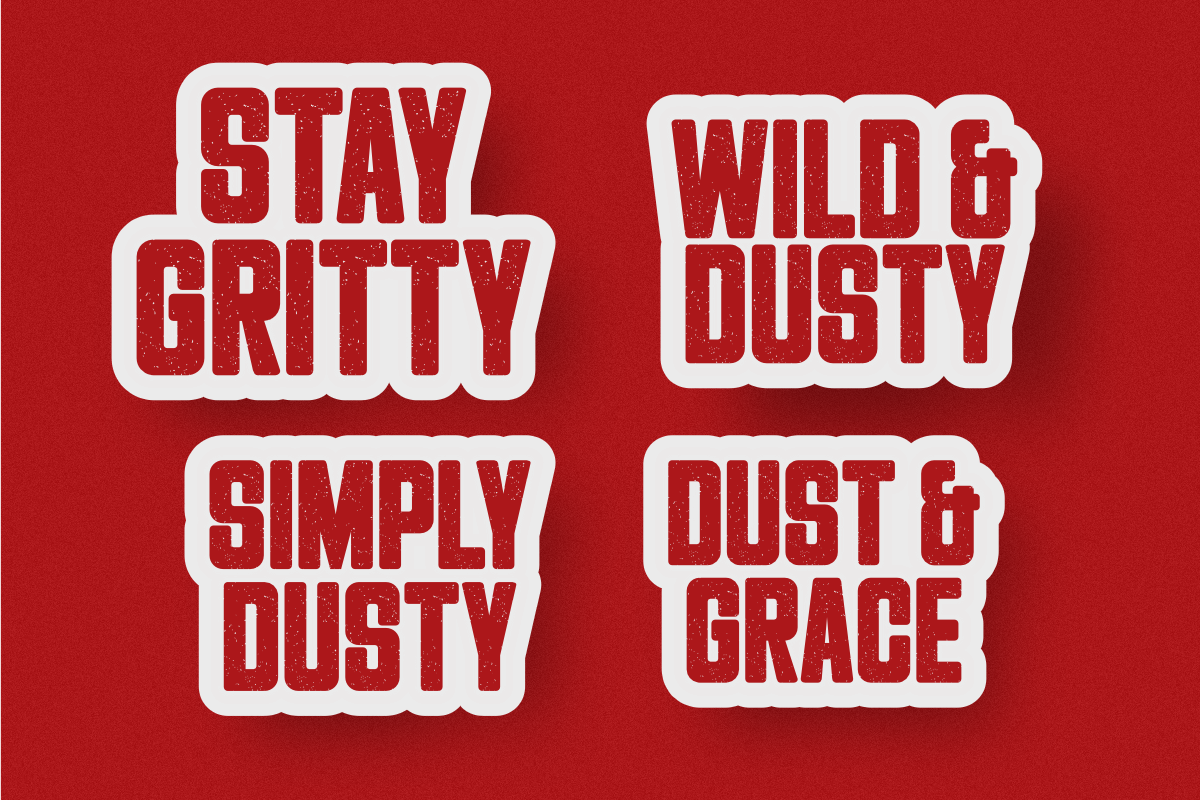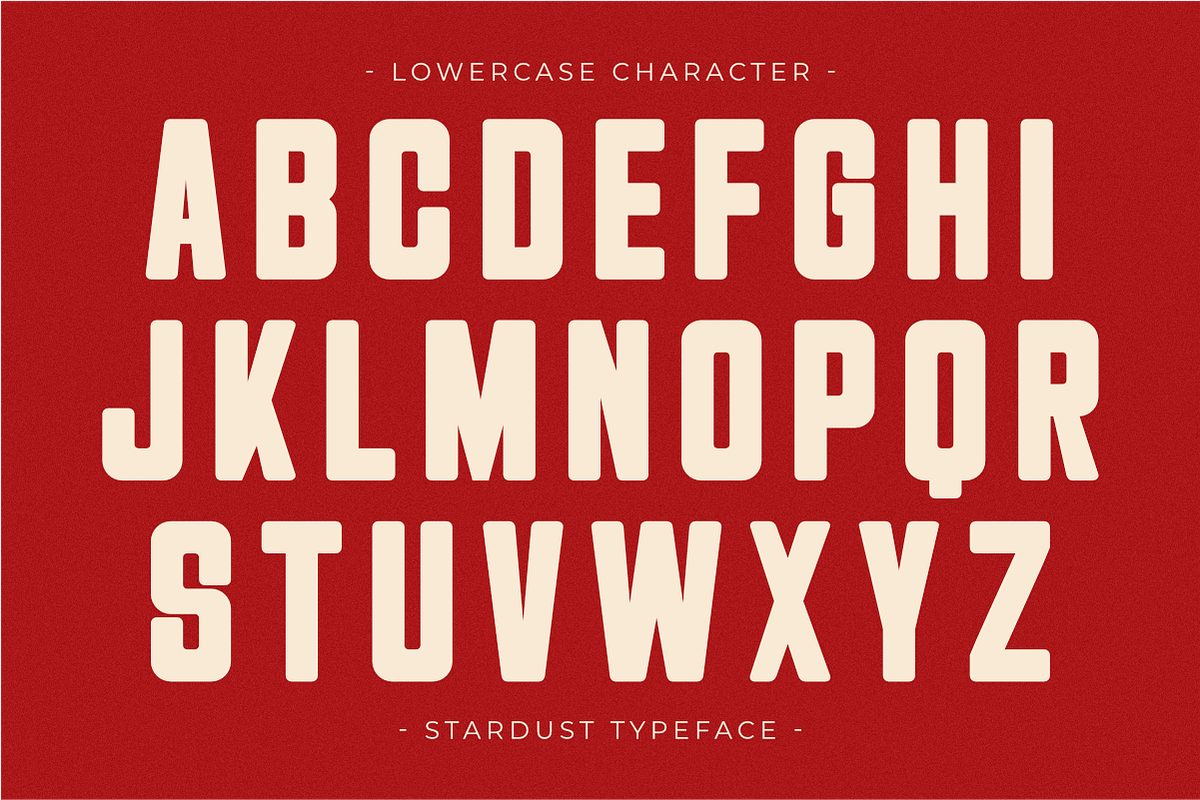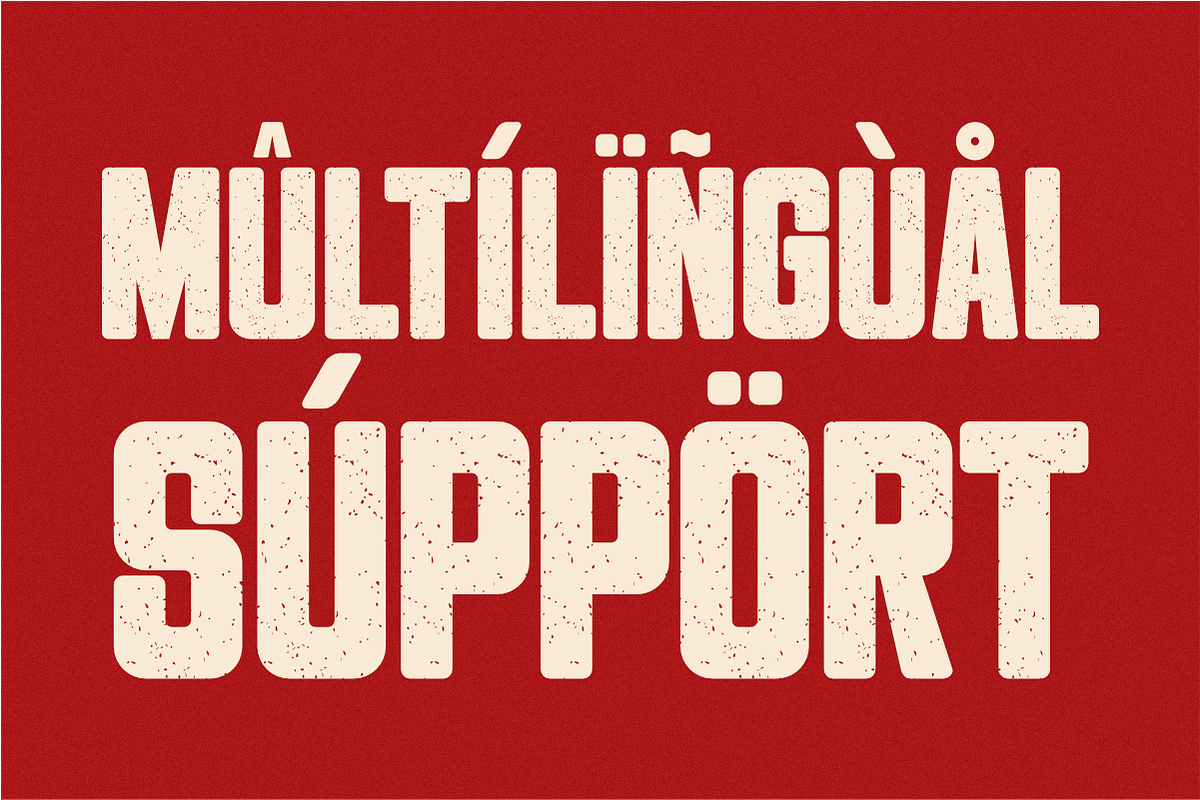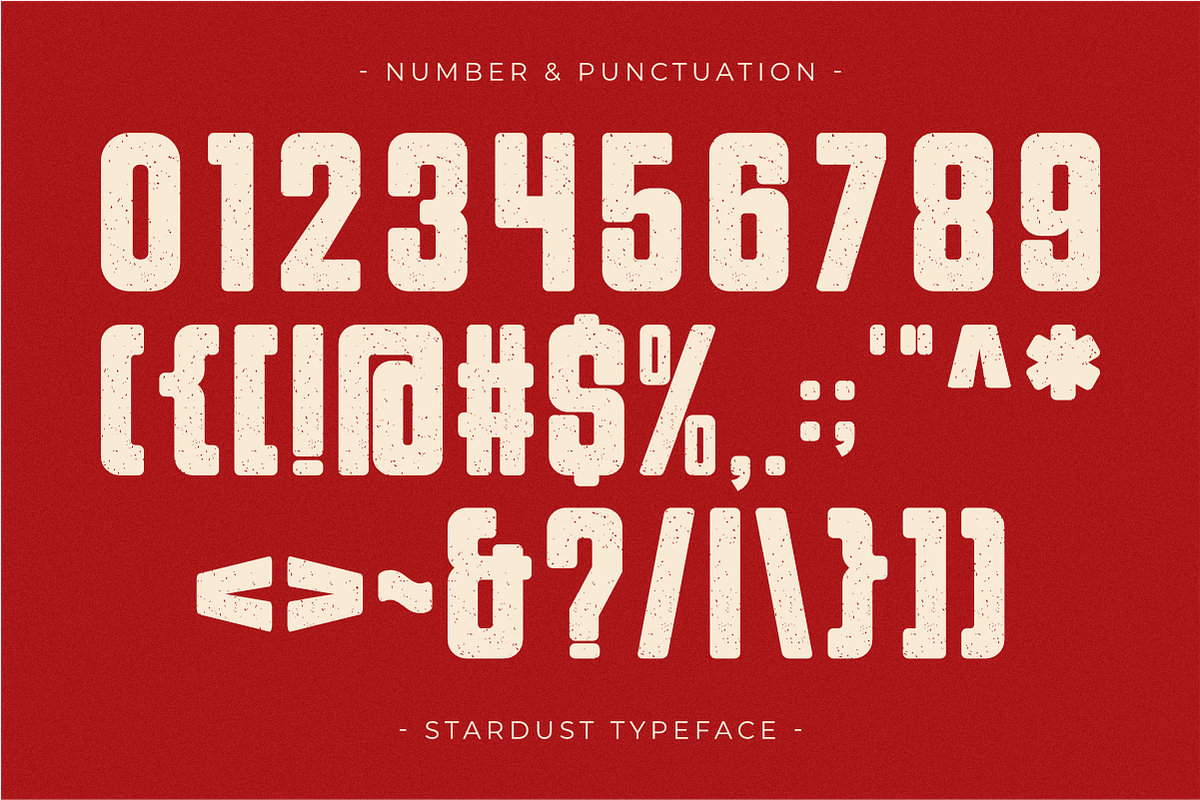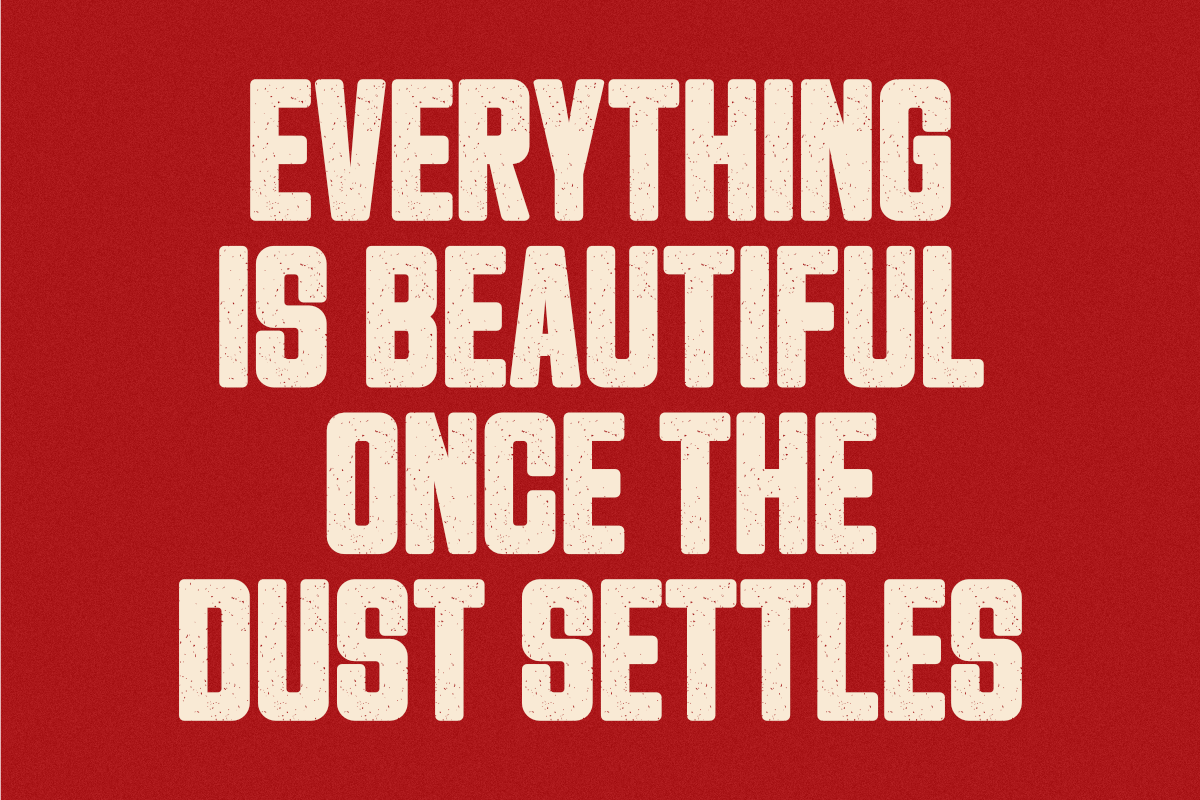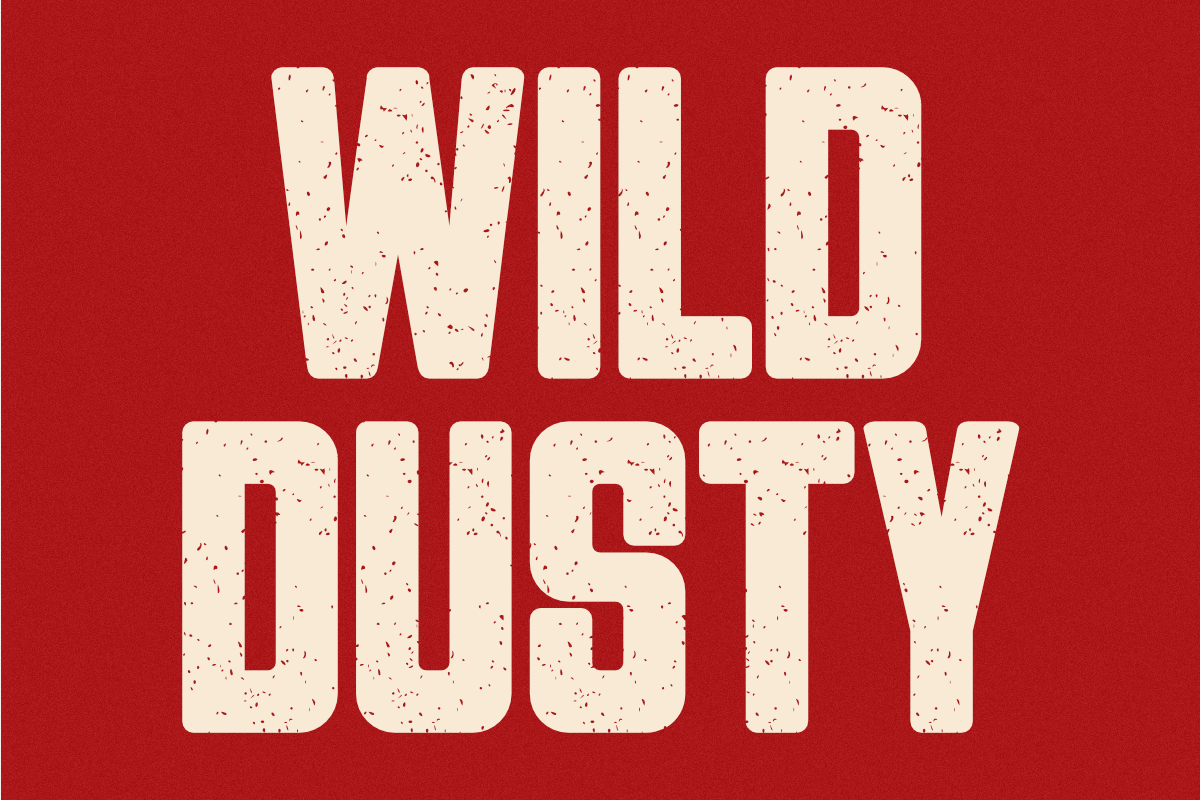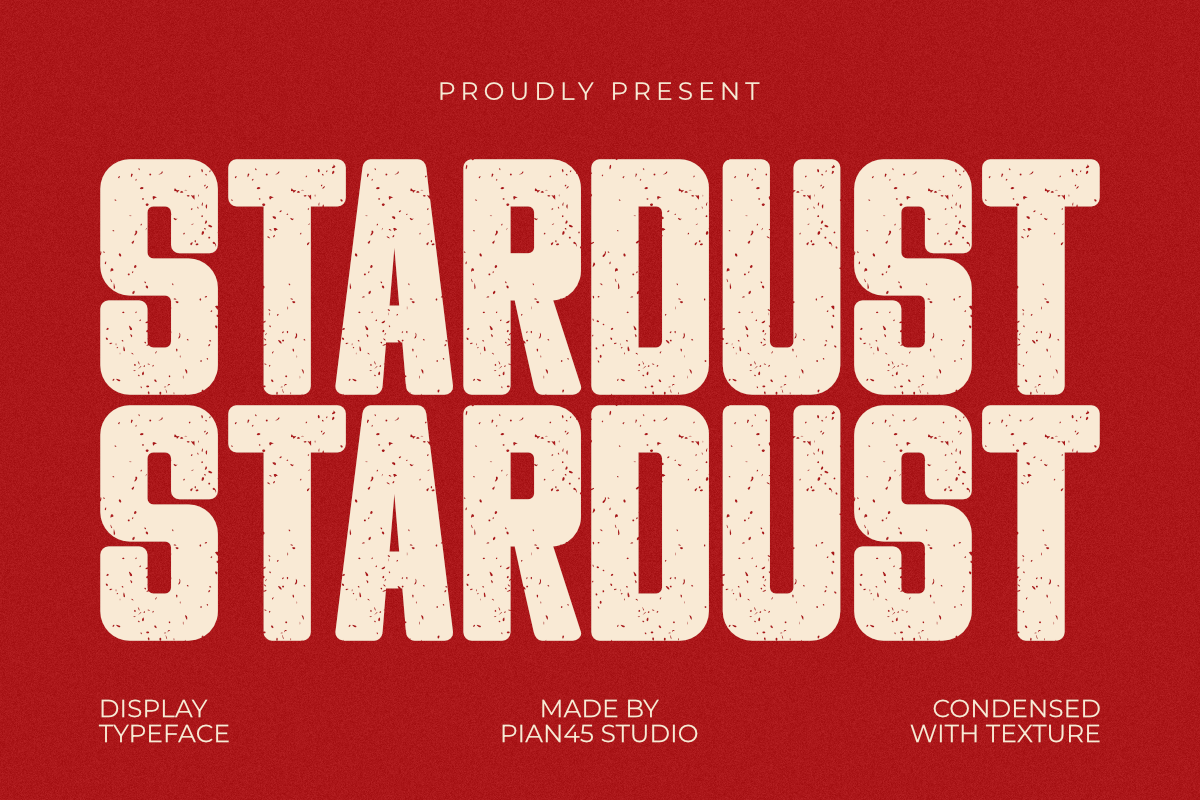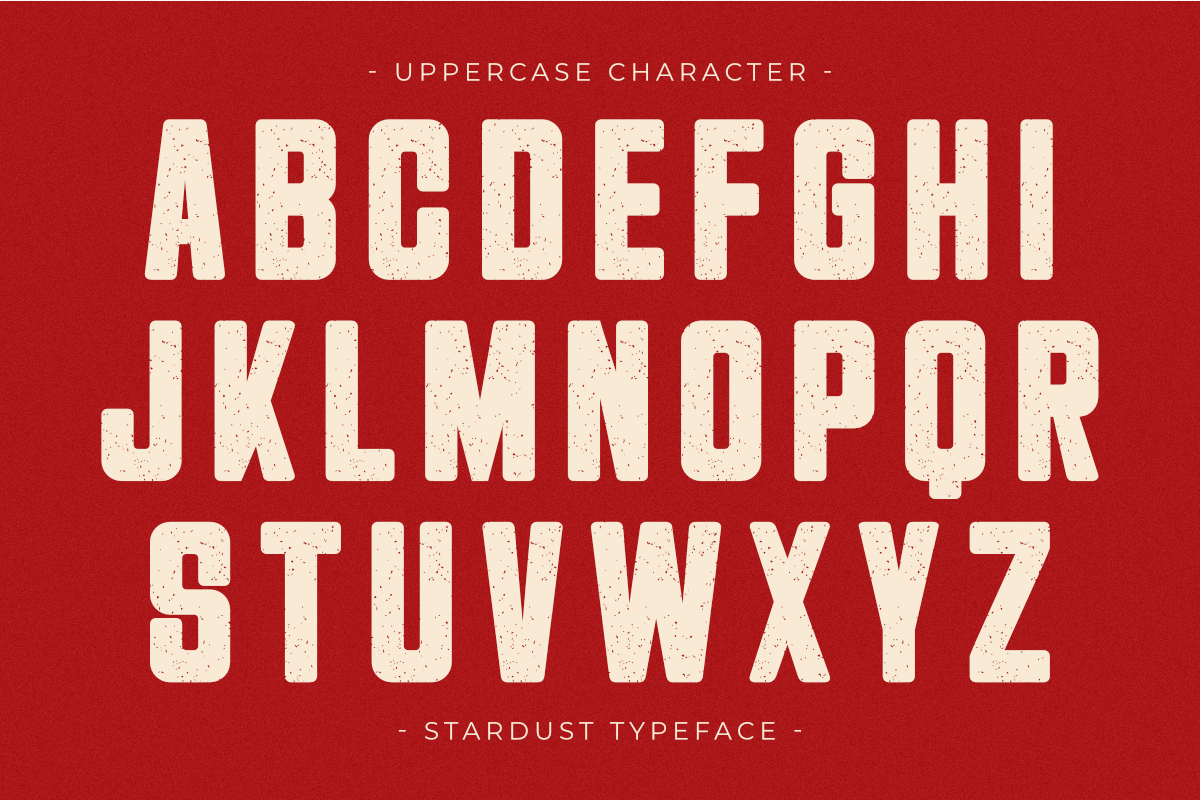
Stardust - Condensed Texture Font
Stardust is a mesmerizing and impactful Modern Condensed Display font that blends bold, blocky letterforms with a unique distressed texture. Perfectly timed for Valentine’s Day, this typeface brings a touch of celestial romance and gritty charm to your designs. Its rounded, heavy structure makes it ideal for romantic branding, love-themed streetwear, wedding posters, and high-energy social media headlines. Whether you are creating a special gift card or a trendy apparel line, Stardust provides a versatile, 'magical' visual identity that is both powerful and affectionate.